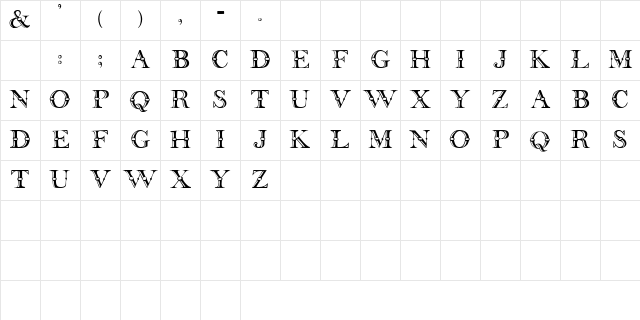
CarnivaleDisplayCapsSSK Regular
Design Context for CarnivaleDisplayCapsSSK
CarnivaleDisplayCapsSSK is built around its visual character rather than neutral utility - its distinctive forms are designed to make an impression at display sizes.
Font Pairing: Pair with a clean neutral sans-serif for body copy to let CarnivaleDisplayCapsSSK's character lead without overwhelming the composition.
Pro Tip: Use CarnivaleDisplayCapsSSK exclusively at display sizes - it was designed to be seen, not read at length. Let a neutral companion handle body copy.